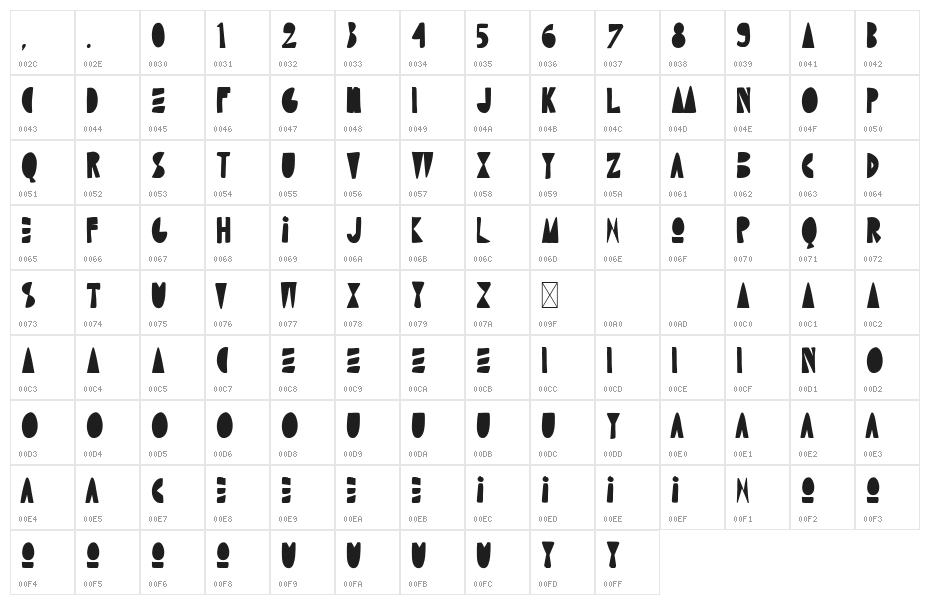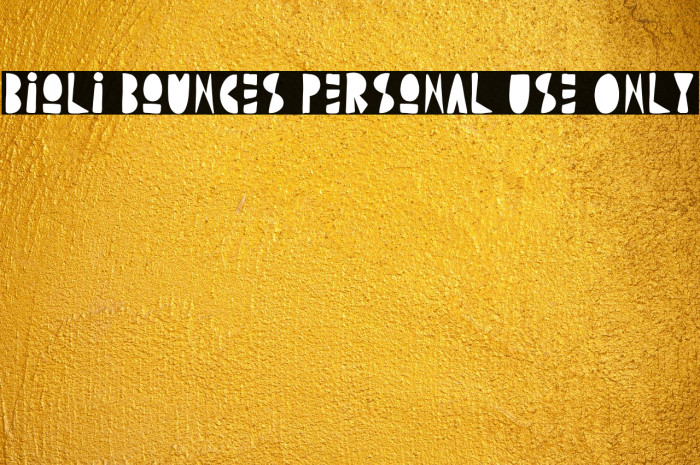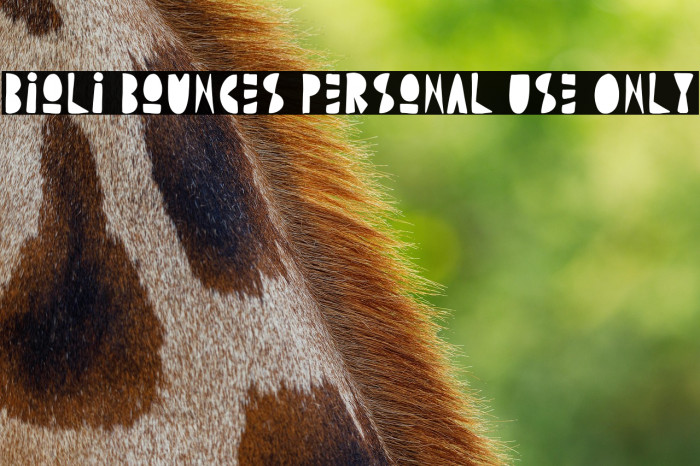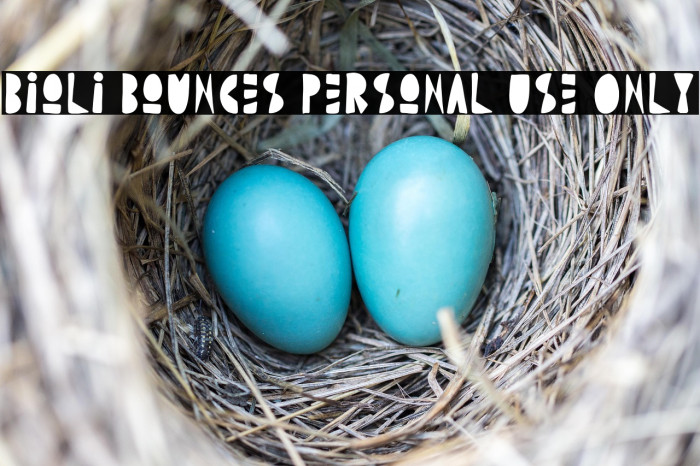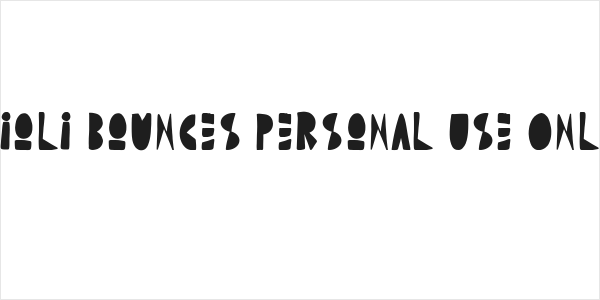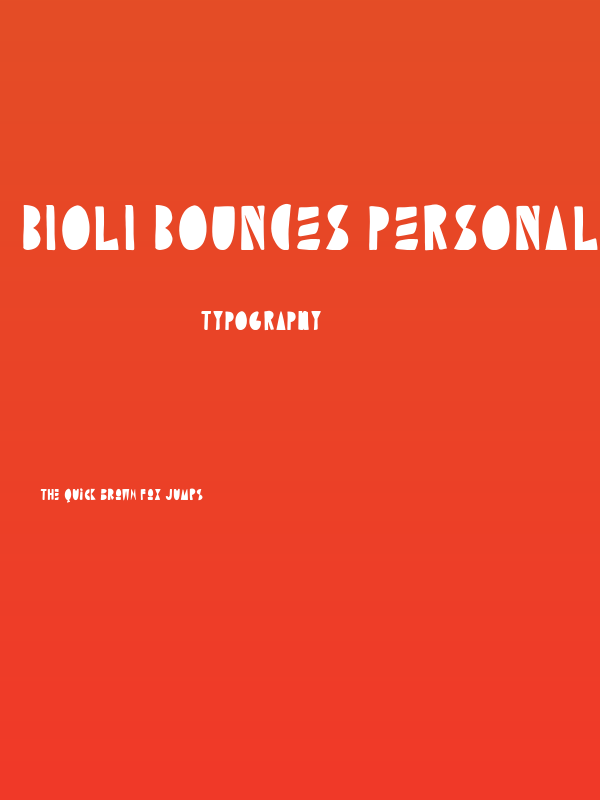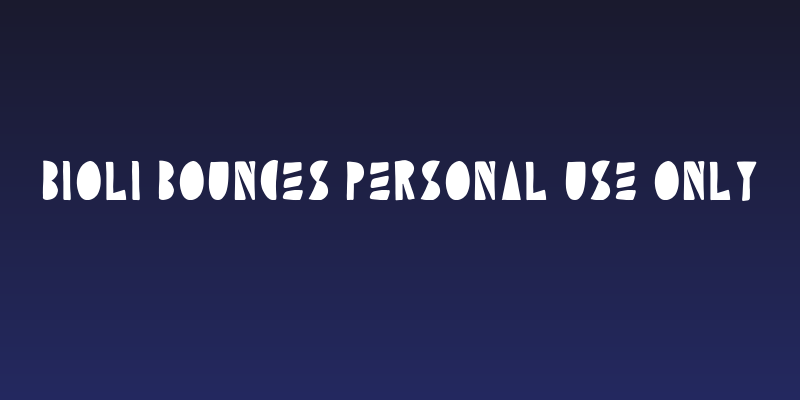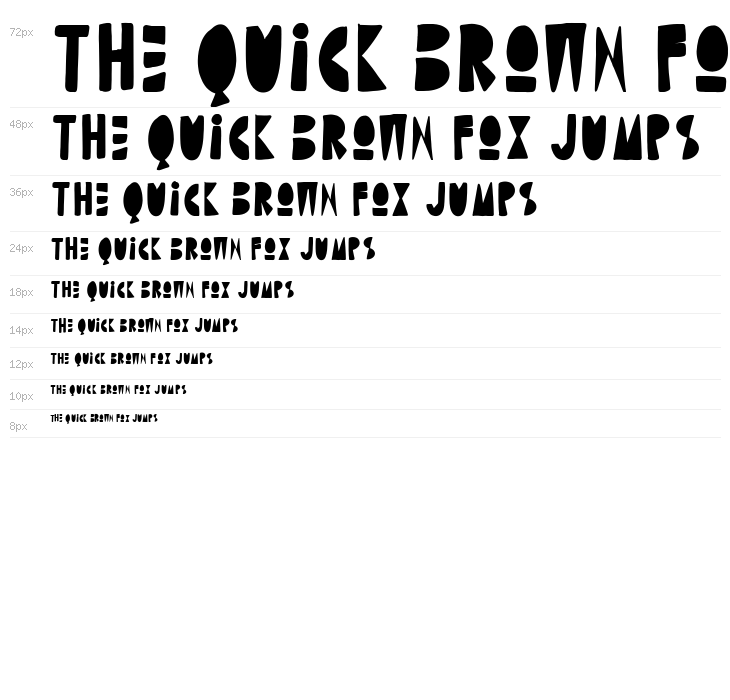
Bioli Bounces Personal Use Only Font
Bioli Bounces Personal Use Only Description
This font features a bold and playful design with a distinctly irregular and hand-drawn appearance. The characters are thick and chunky, with varying widths and unique shapes that give each letter a whimsical and artistic feel. The uppercase and lowercase letters share a similar style, maintaining a cohesive look throughout. The numbers and special characters are equally bold and stylized, fitting seamlessly with the overall aesthetic. This font's unique character shapes and bold presence make it stand out, perfect for creative and expressive design projects.
| Overall Style | Playful, Artistic |
| Proposed Projects | Ideal for posters, children's books, creative branding, and playful graphic designs. |